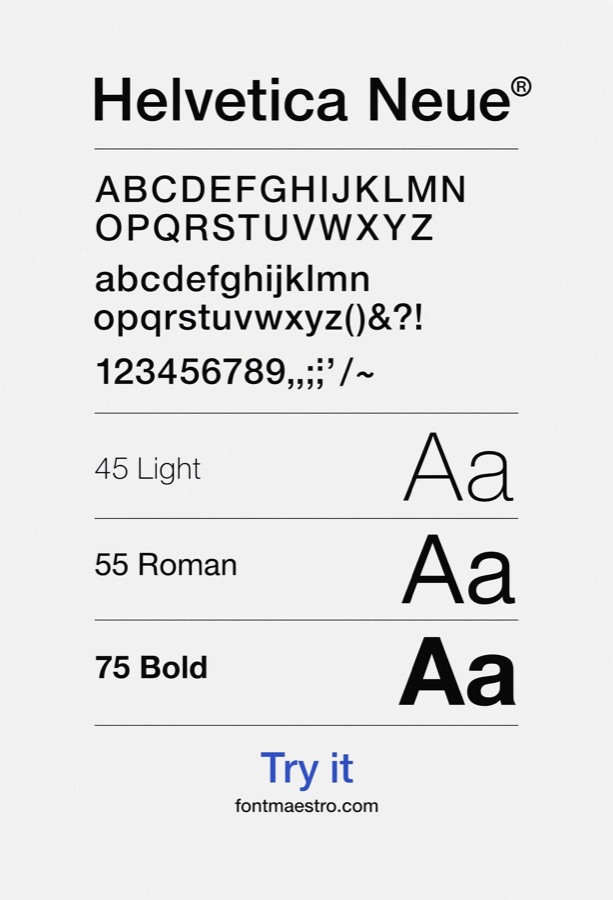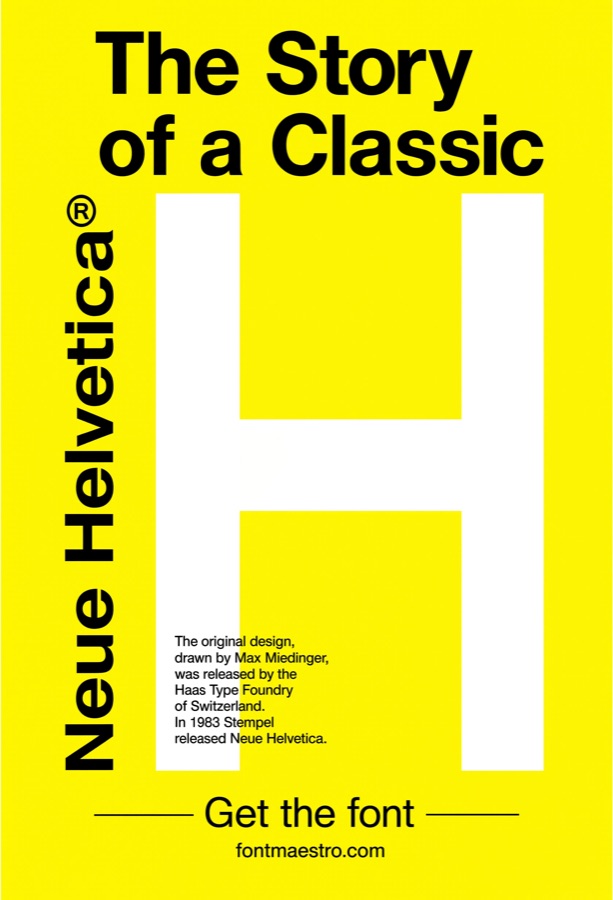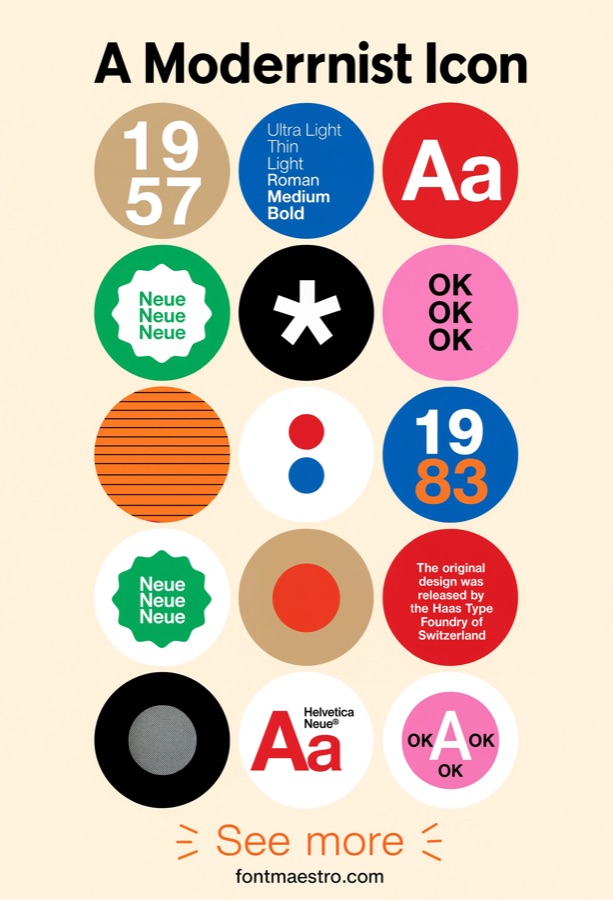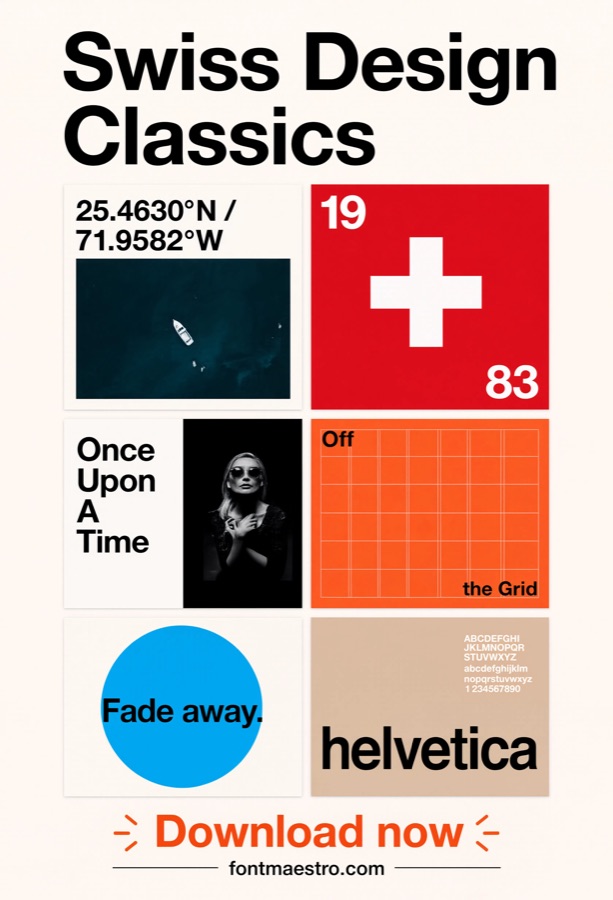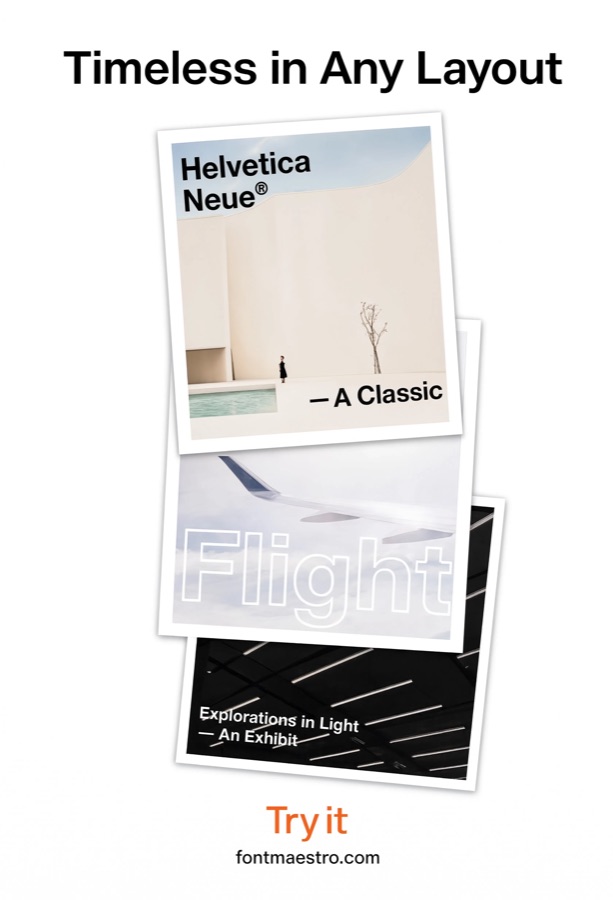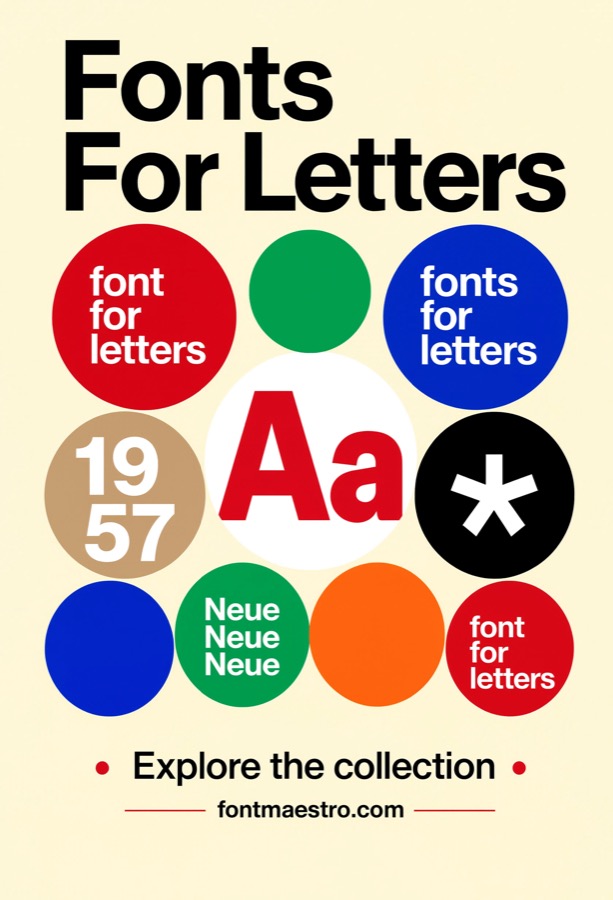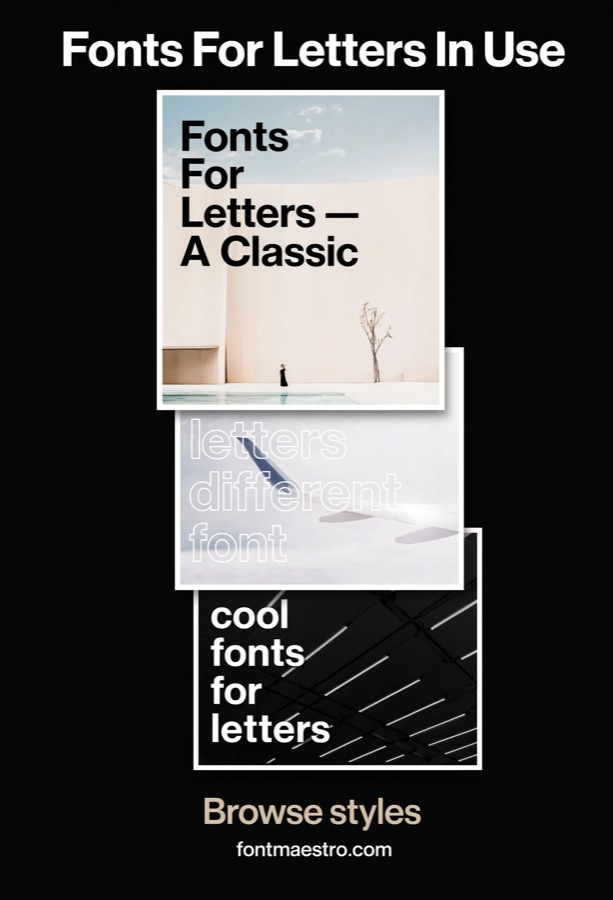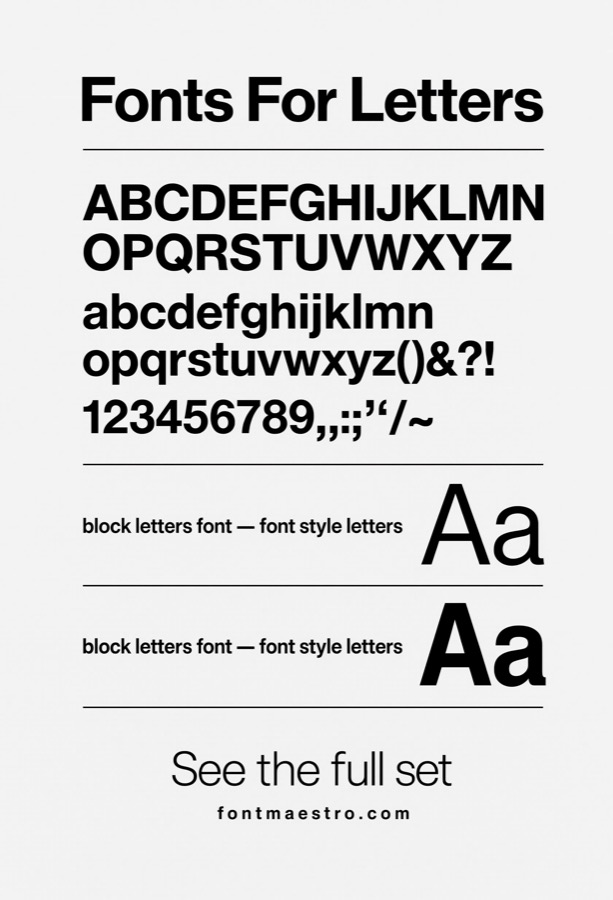
Search “fonts for letters” long enough and the same reference keeps coming up: Swiss modernism. The International Typographic Style, built in Switzerland in the 1950s, set the rules that most grid-based, legibility-first design still follows today, and Neue Helvetica is the typeface that style was built around.
You don’t need to care about design history to use it well. But understanding what the Swiss grid tradition was actually solving for explains why this particular alphabet still outperforms newer, flashier fonts in layout-heavy work.
Quick answer: Swiss-style modernist design depends on a typeface with zero visual noise, no personality competing with the grid or the content. Neue Helvetica was engineered for exactly that role, and the six examples below show how that principle plays out in real layouts.
What the Swiss grid tradition actually demands from a typeface
Swiss modernist design (also called the International Typographic Style) is built on strict grid systems, generous white space, and sans-serif type set with mathematical consistency. The typeface itself isn’t supposed to have a “voice”, it’s infrastructure, not decoration.
That’s a harder brief than it sounds. A font needs to:
Disappear into the grid. No stylistic flourishes that pull attention away from the layout’s structure, the grid does the visual work, not the letterforms.
Stay legible at every scale the grid requires. Headlines, captions, and body copy in the same family, all reading cleanly at their respective sizes.
Hold up across decades of use without looking dated. Trend-driven fonts age visibly. Neutral, well-constructed letterforms don’t, which is a large part of why Neue Helvetica still anchors editorial and wayfinding design today.
The six examples below trace that principle from typeface specimen through to finished modernist layouts.
Best for magazine-style and long-form layouts. Editorial design lives or dies on grid discipline, columns, margins, and type all locking into a consistent system. Neue Helvetica’s neutral letterforms let the grid carry the visual weight instead of competing with it.
Full Weight Specimen
Best for planning a hierarchy before you design. Seeing every weight of a family lined up together, light through black, makes it obvious which combinations will create clear visual hierarchy in a layout, and which weights are too close together to read as distinct.
High-Contrast Color Blocking
Best for bold, poster-style modernist compositions. Swiss design isn’t always minimal, high-contrast color blocking with a single bold letterform is a recognizable branch of the same tradition. It works because the letterform itself stays structurally clean even against saturated color.
Geometric Icon Pairings
Best for combining type with geometric graphic elements. Modernist layouts often pair type with simple geometric shapes, circles, grids, bars. A neutral typeface keeps the composition feeling unified rather than like two competing design languages stitched together.
Strict Swiss Grid Systems
Best for wayfinding, transit, and information design. This is the use case the style was originally built for, signage systems where clarity has to survive distance, motion, and glancing attention. Neue Helvetica remains a default choice for transit and wayfinding design worldwide for this reason.
Timeless Poster Composition
Best for a design that needs to still look right in ten years. Trend-driven display fonts date a poster fast. A composition built on neutral, well-proportioned letterforms ages the way the original Swiss modernist posters have, still referenced and reproduced decades later.
Concentric Ring Diagrams
Best for information diagrams built around concentric circles, schedules, cycles, comparison charts. Swiss information design leans heavily on circular diagrams for showing cycles, proportions, and time-based data. A neutral letterform keeps labels legible inside and around the rings without the type competing with the diagram’s own geometry for attention.
Single-Sheet Broadside Posters
Best for a single standalone announcement poster rather than a coordinated series. A one-off broadside, an event announcement, a lecture poster, a single-sheet notice, carries its entire message in one composition with no companion pieces to lean on. Clean, well-proportioned letterforms hold that weight without needing decorative support.
Type Specimen Publication Layout